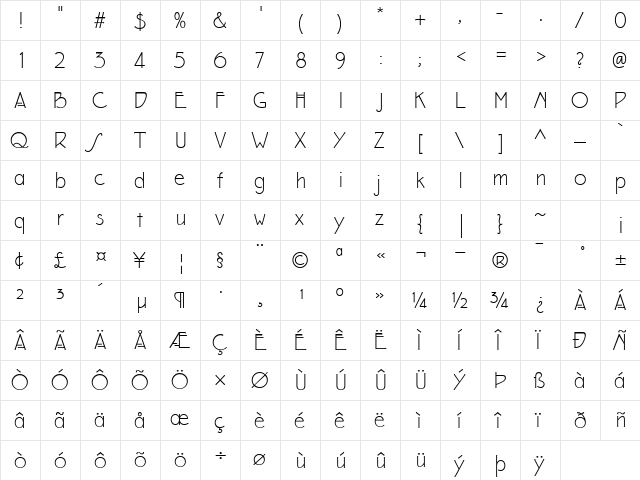
EaglefeatherFormalLight Regular
Design Context for EaglefeatherFormalLight Typeface
EaglefeatherFormalLight offers clean, dependable letterforms without strong stylistic allegiance, making it a practical choice for designers who need flexibility. The delicate stroke weight brings airiness and refinement to layouts.